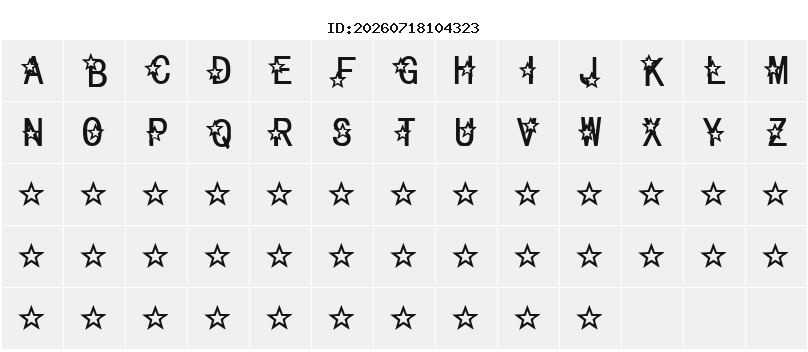
Celestial.ttf is a modern, elegant sans-serif font designed for ultimate readability and visual harmony. Perfect for branding, headlines, web design, and print materials.